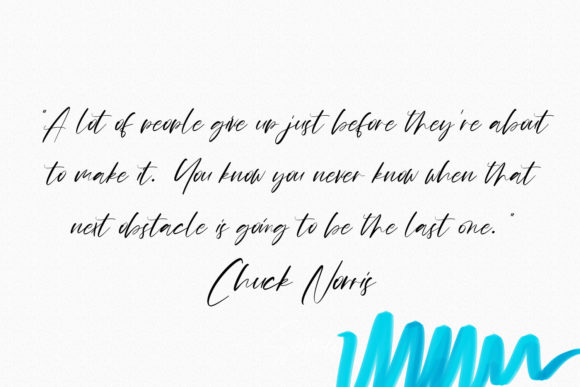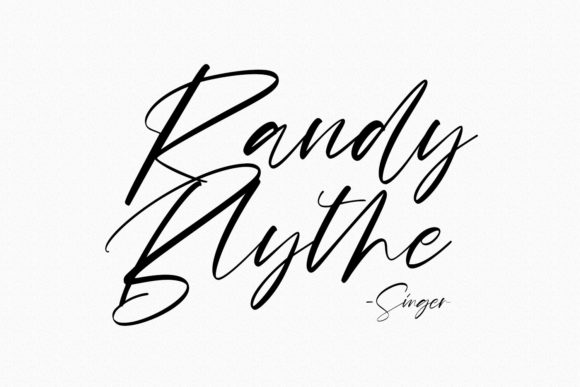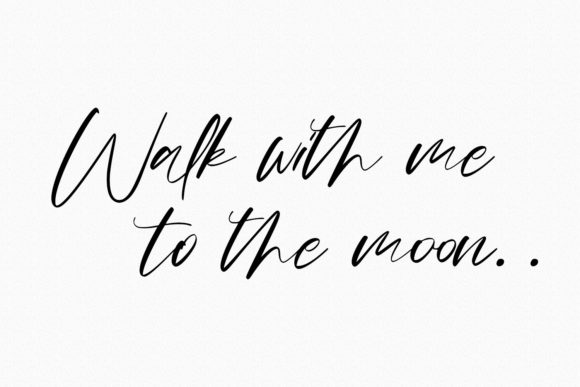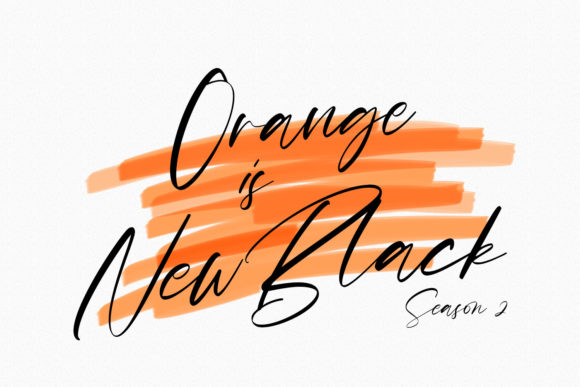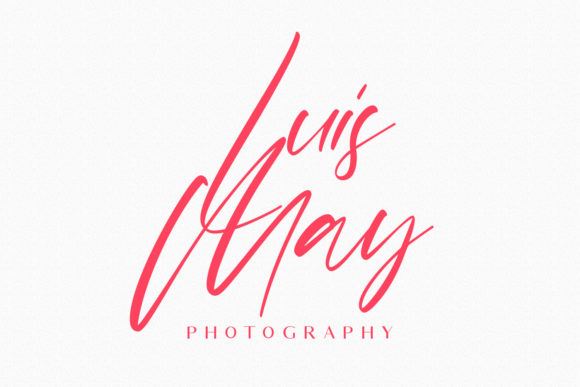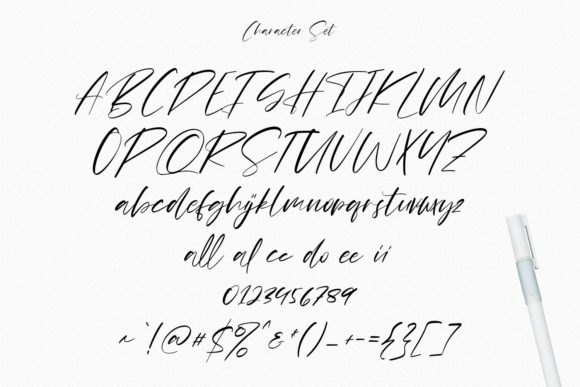
Introduction to Kartbones Script Font
Kartbones Script is a whimsical script font with a relaxed theme, featuring a lovely style.
Key Features of Kartbones Script Font